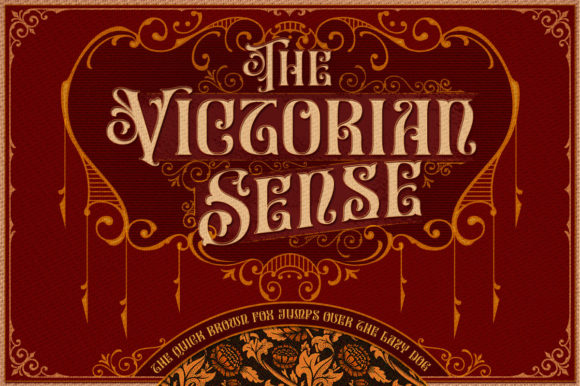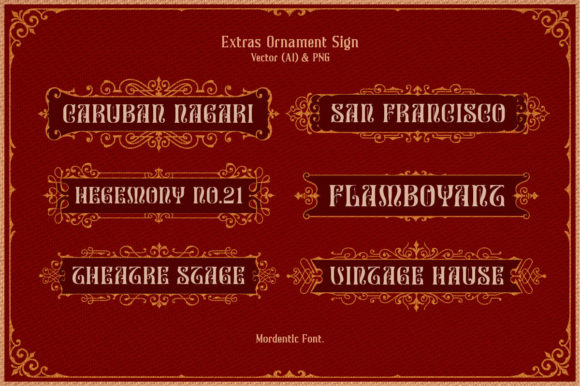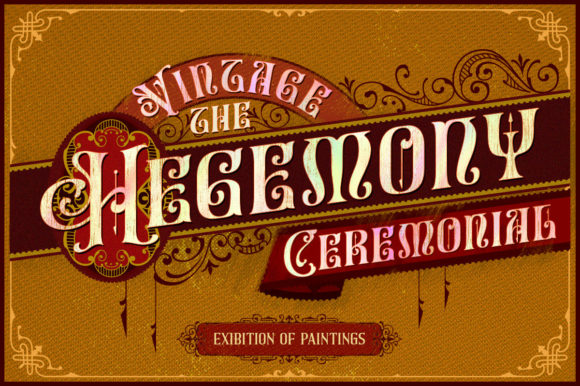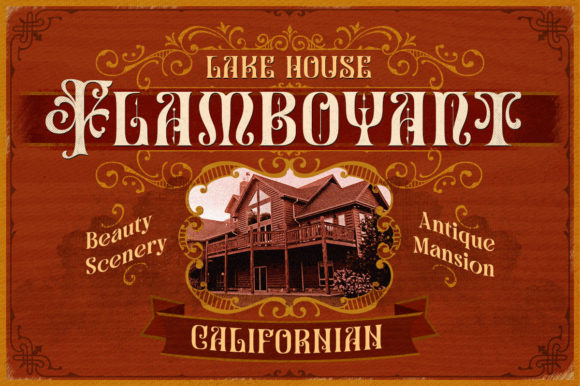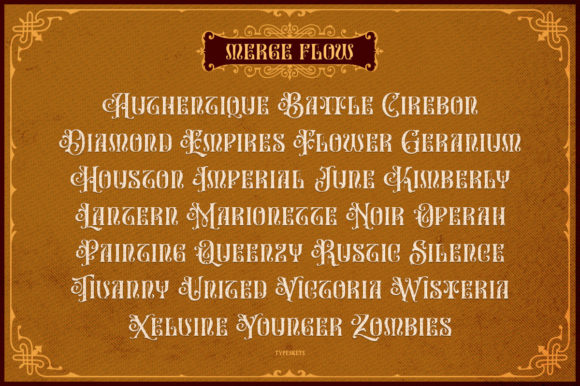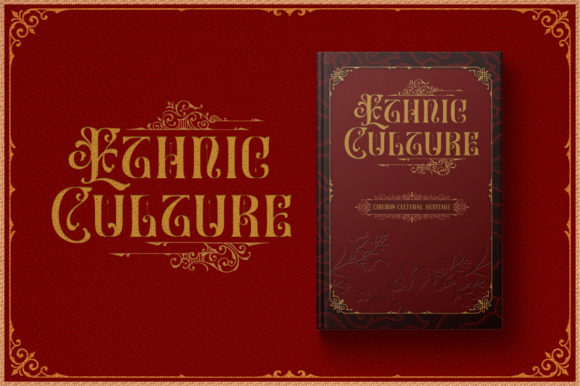
Introduction to Mordentic Font
Have you ever been rummaging through an old antique shop, searching for that perfect vintage-inspired design element to elevate your creative project? You know, the moment when you stumble upon a beautifully crafted, distressed frame or a delicate, hand-drawn ornament that sparks an idea for your next design. For designers, this moment is not just about finding the right visual element, but also about having a high-quality design resource that can transport their vision to life.
That’s where the Mordentic Font comes in – a stunning, Victorian-inspired font that boasts an elegant and classy touch, perfect for adding a touch of sophistication to your vintage-themed designs. With its beautiful ornaments, frames, and patterns, this font is a treasure trove of creative possibilities, waiting to be explored and put to good use.
Key Features of Mordentic Font
- High-quality design resource ideal for creative projects, with a unique blend of modern and vintage elements.
- Includes a wide range of characters, including uppercase and lowercase letters, numbers, and special symbols.
- Designed to be highly versatile, making it suitable for a variety of applications, from print materials to digital displays.
- Unique characteristics include a distressed texture and subtle gradient effects, adding depth and visual interest to any design.
Honest Review: Mordentic Font
As a designer, I’m always on the lookout for high-quality design resources to elevate my creative projects. The Mordentic Font is one such find that has caught my attention. In this review, I’ll share my honest thoughts on this font.
- ✨ The font is extremely versatile and can be used for a wide range of creative projects, from logos to brochures.
- ✨ The Mordentic Font has a unique, modern aesthetic that sets it apart from more common fonts.
- ⚠️ The font only comes in a few weights, which may limit its use in certain projects.
Overall, the Mordentic Font is a solid addition to any designer’s toolkit. Its unique style and versatility make it a great choice for creative projects. While it may have some limitations, it’s definitely worth considering for your next design project.
Common Use Cases for Mordentic Font
Mordentic Font is ideal for use in a variety of creative projects, including:
- Presentations and slideshows
- Documents and reports
- Graphics and illustrations